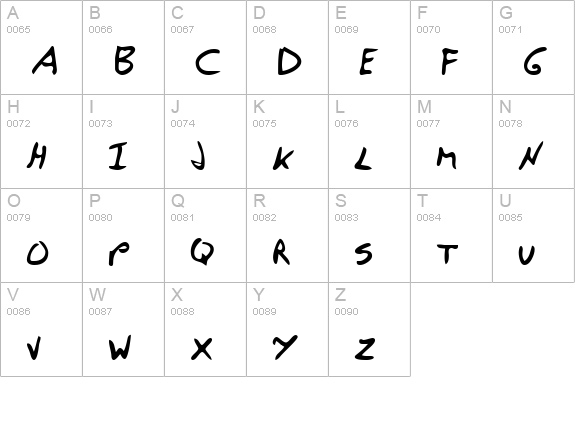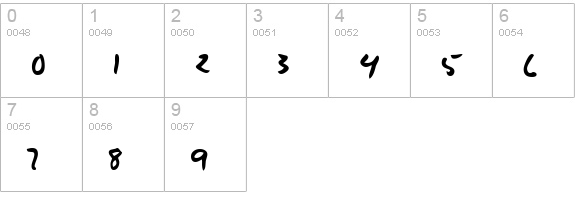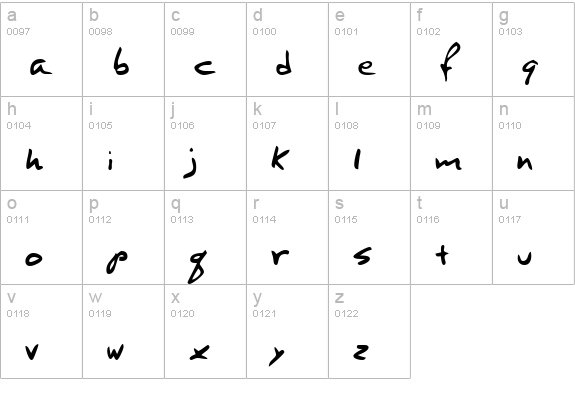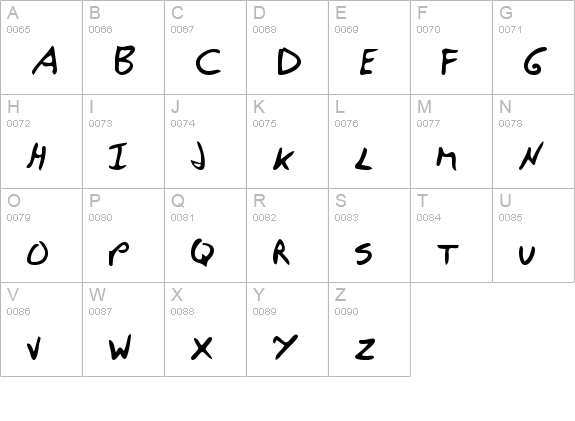
VincentsHand Regular Font Details
VincentsHand Regular is the standard, neutral variant in the VincentsHand typeface family \xE2\x80\x94 well suited to general body text, paragraphs, and standard typographic work.
VincentsHand Regular is a charming and versatile font that exudes a sense of whimsy and creativity. With its delicate curves and playful strokes, this font captures the essence of handwritten calligraphy with a touch of uniqueness. Whether you're designing greeting cards, invitations, or adding a personal touch to your digital creations, VincentsHand Regular is the perfect choice. This font offers a wide range of lowercase and uppercase characters, along with numerals and punctuation marks, allowing you to express your ideas with precision and flair. Its legibility and stylish appeal make it suitable for various design projects, from branding and packaging to social media graphics and website headers. What's even better is that VincentsHand Regular is freely available to download at FontsMarket.com. So, you can effortlessly enhance your design projects without any cost or hassle. Don't miss out on this opportunity to add a touch of elegance and creativity to your designs with VincentsHand Regular. Start exploring the endless possibilities today!